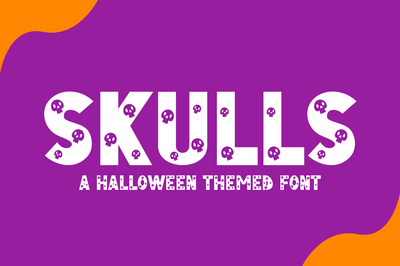
Skulls - A Halloween Font
Skulls is a unique and cute decorative font. This Halloween themed font is decorated with cute skull faces. This font is perfect for many purposes!